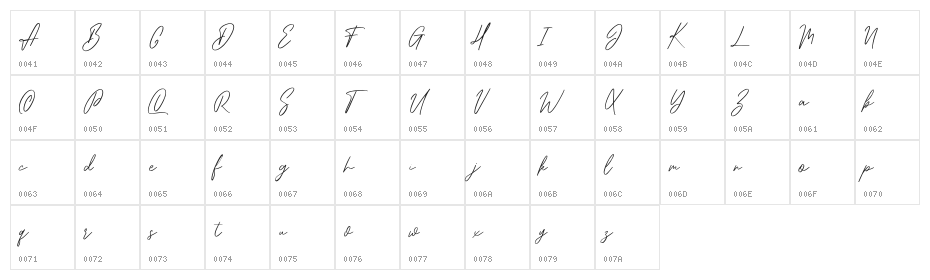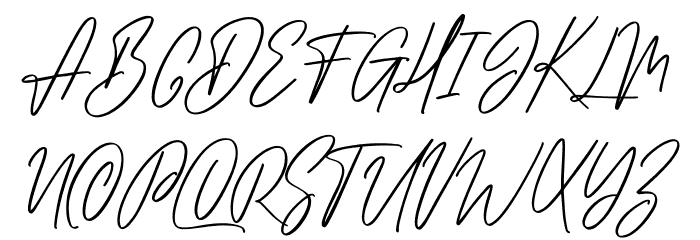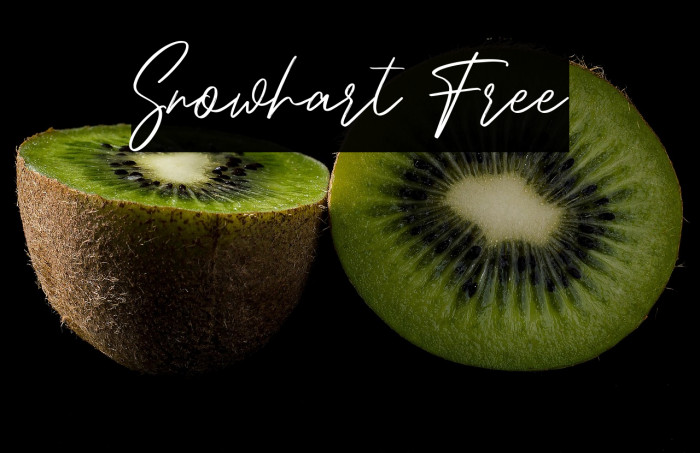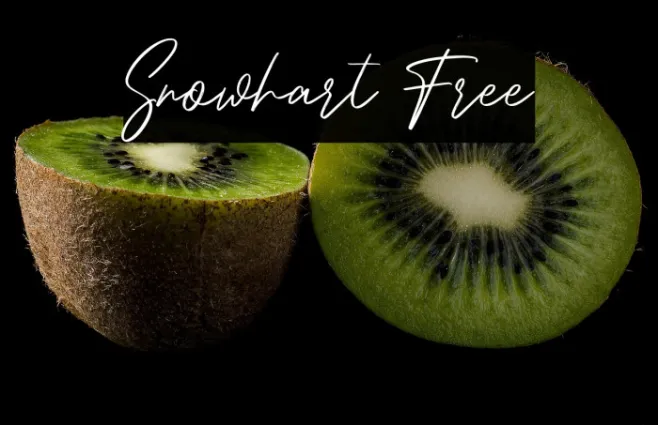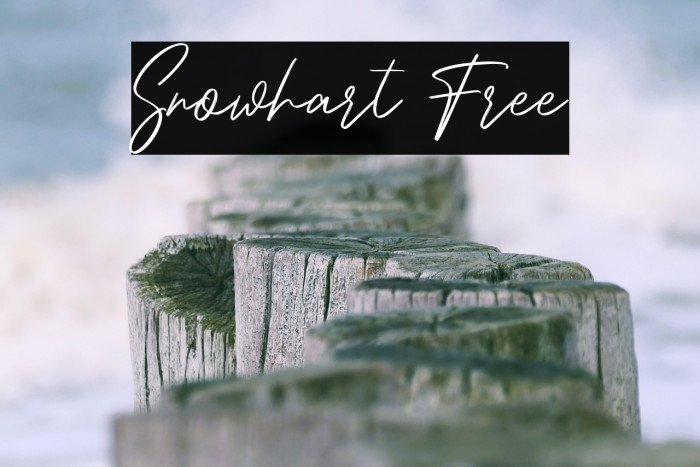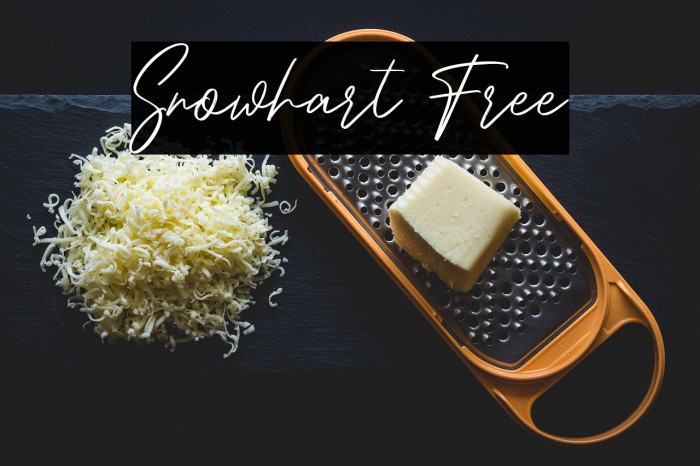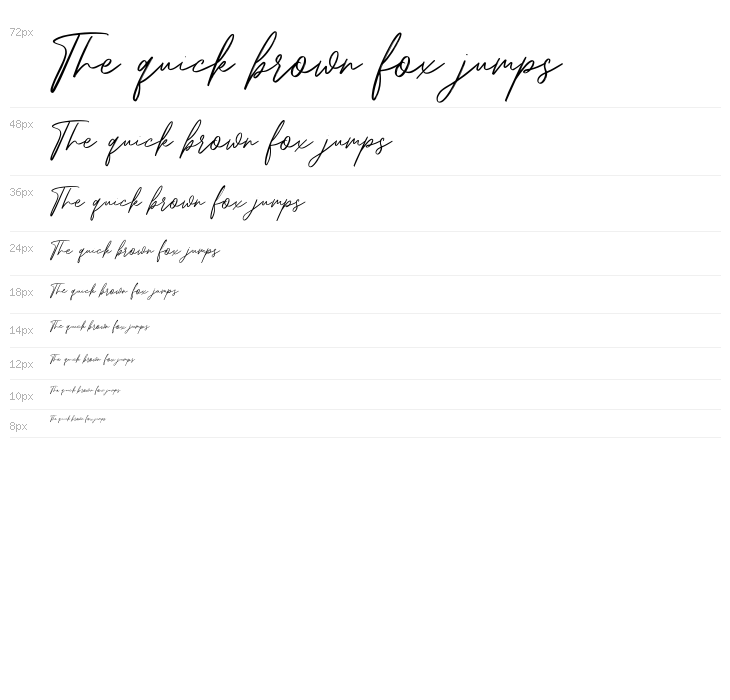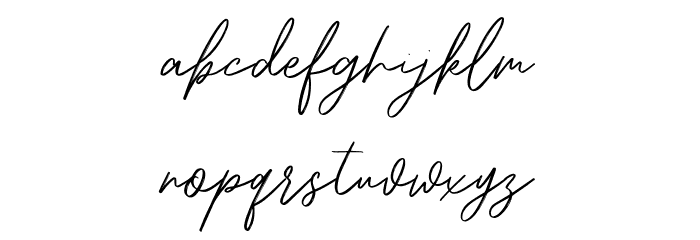
Snowhart Free Font
Snowhart Free Description
This font features an elegant, flowing script style that mimics the fluidity of natural handwriting. The characters are connected with smooth, sweeping strokes, giving it a sense of movement and grace. The uppercase letters are bold and prominent, while the lowercase letters maintain a delicate and refined appearance. The font is characterized by its high contrast between thick and thin lines, adding to its sophisticated and stylish look. The overall design is modern yet timeless, making it versatile for various design applications. The special characters are seamlessly integrated, maintaining the font's cohesive aesthetic.
| Proposed Projects | Ideal for wedding invitations, branding, logos, and elegant stationery designs. |